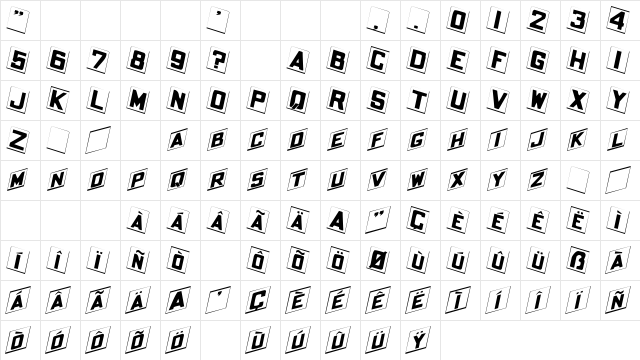
PlacecardExtended Italic
Design Context for PlacecardExtended
PlacecardExtended is a composed and adaptable typeface that performs quietly and consistently across a wide range of design contexts. The slanted form adds forward momentum and visual energy.
Pro Tip: Use PlacecardExtended for emphasis, pull quotes, and subheadings where its slanted energy can add rhythm to the layout.